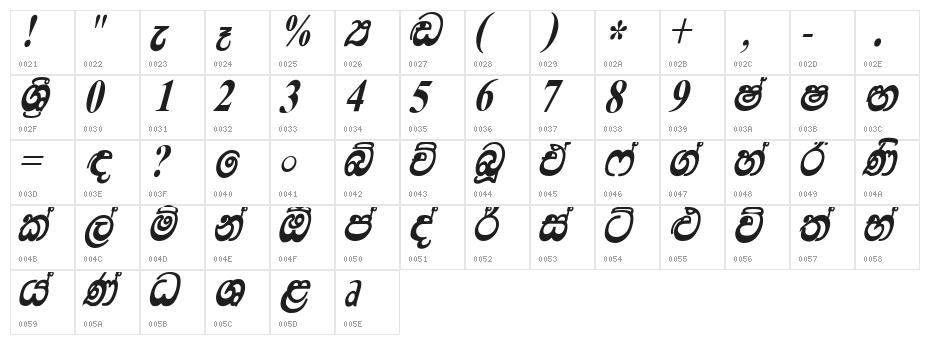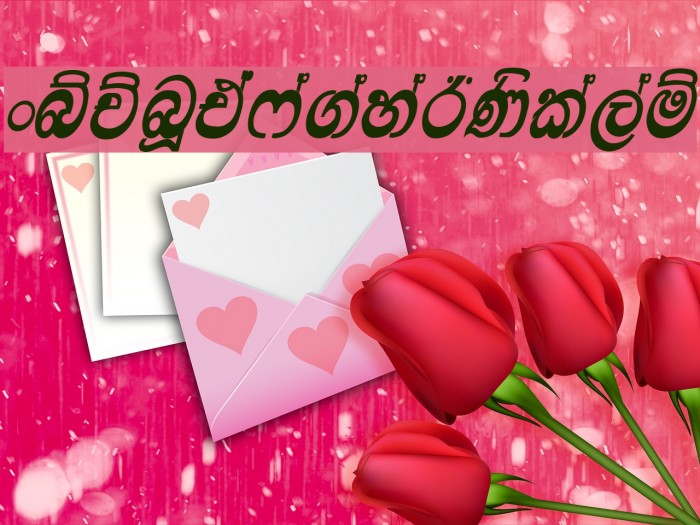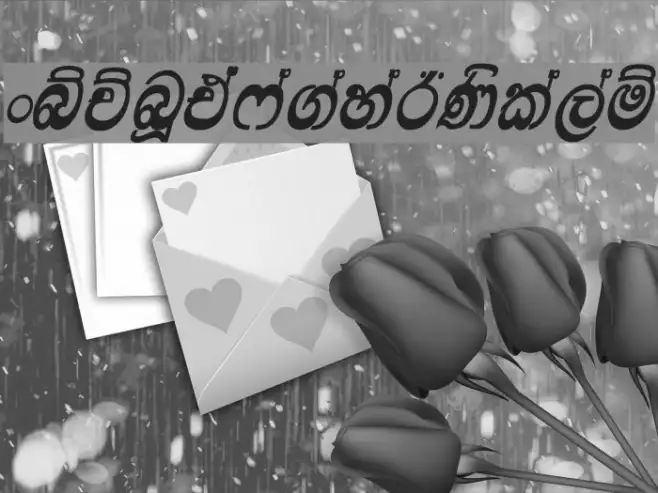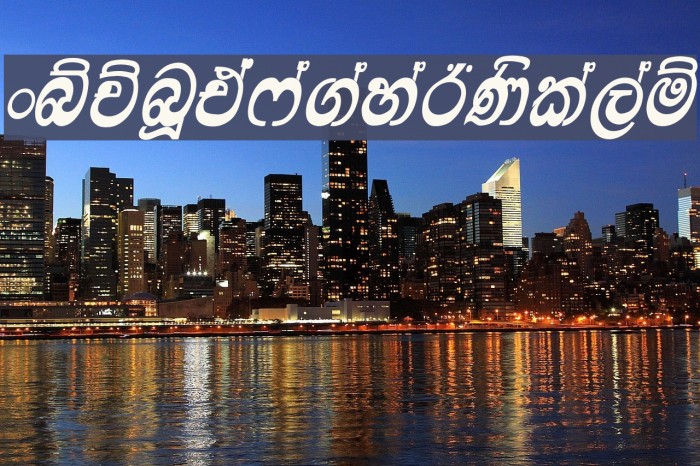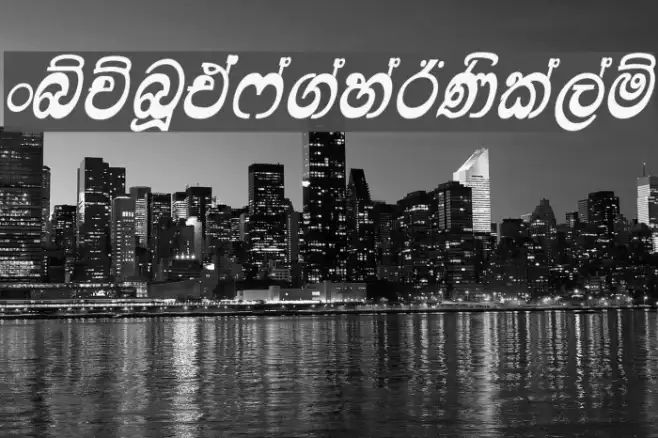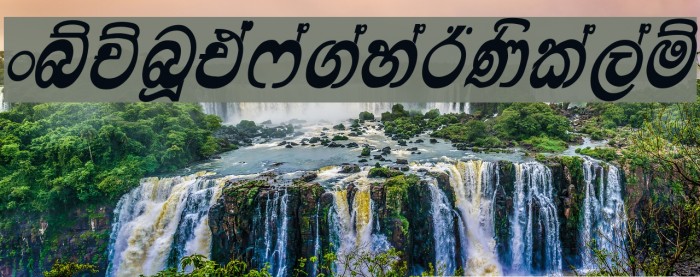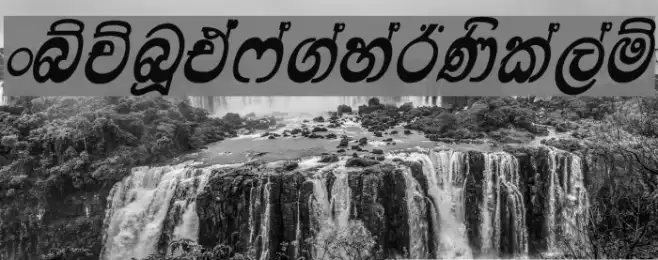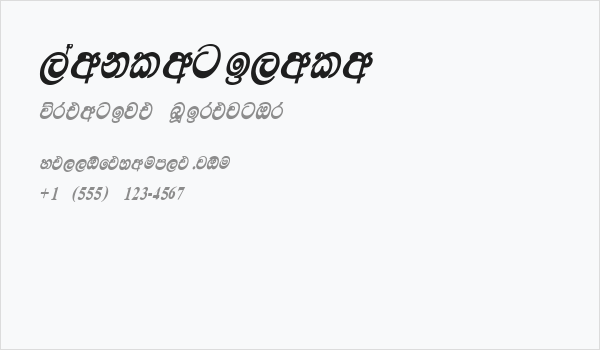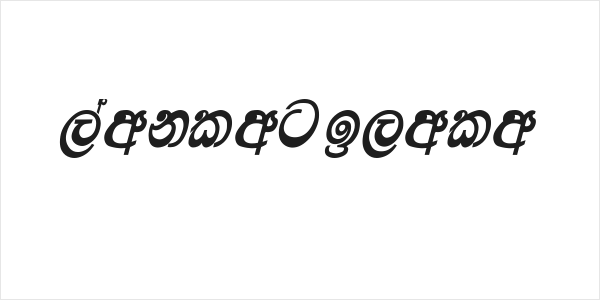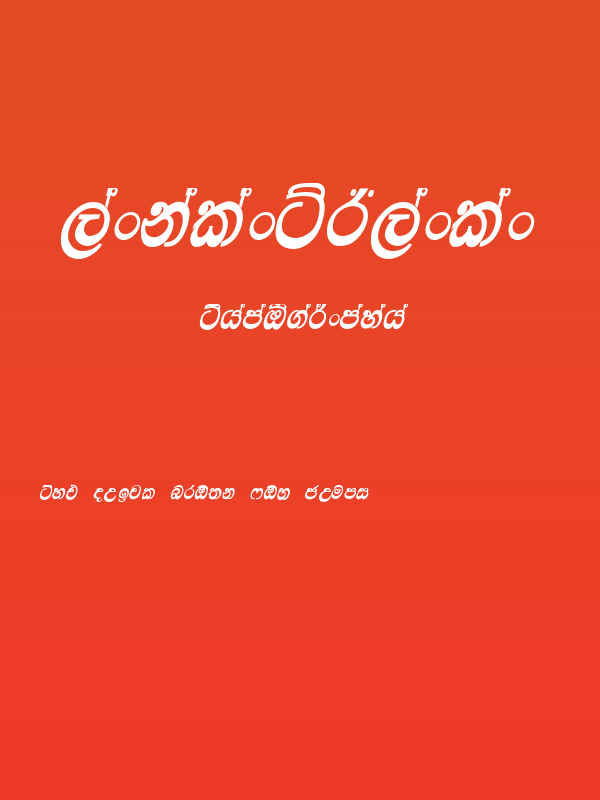
Lankatilaka Font
Lankatilaka Description
This font features a bold and dynamic script style with a strong presence. The characters are elegantly curved, showcasing a high contrast between thick and thin strokes, which adds a sense of sophistication and fluidity. The numerals are equally bold, maintaining the same dynamic flow as the letters. Special characters are designed with the same attention to detail, ensuring consistency across the font. The overall appearance is both traditional and stylish, making it suitable for a variety of creative applications.
| Overall Style | Traditional, Elegant |
| Use Case | Logos, Invitations, Signage |
| Proposed Projects | Ideal for branding, invitations, signage, and any project requiring a touch of elegance and tradition. |